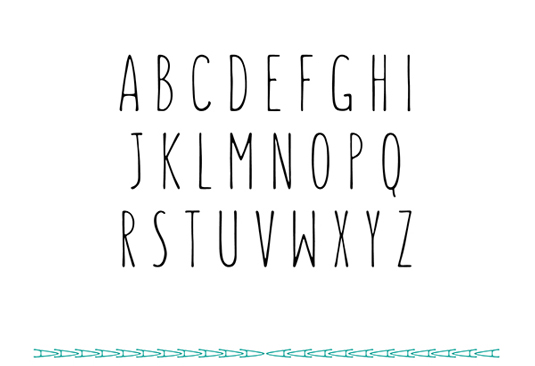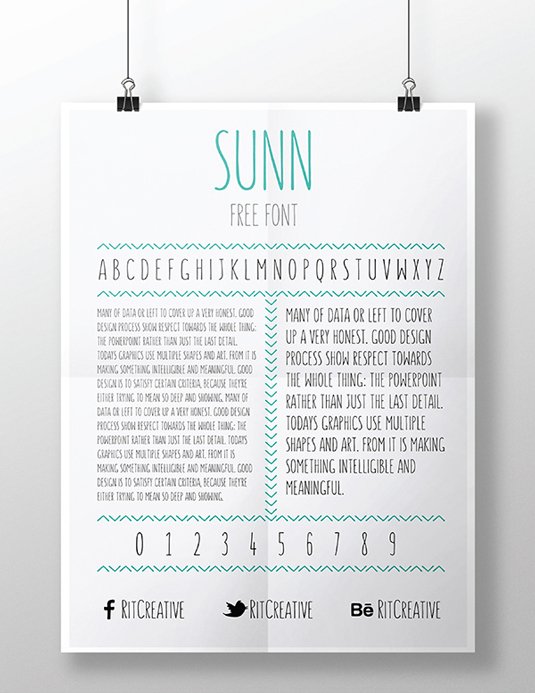
Font of the day: Sunn
Every day we showcase the best fonts on the web. Today it's Sunn by Gatis Vilaks and Krisjanis Mezulis, which is totally free to download.
Sunn by Gatis Vilaks and Krisjanis Mezulis
Handwritten typeface Sunn was developed by creative duo Gatis Vilaks and Krišjānis Mežulis. "We wanted to create a handwriting font which would still be a little bit "clumsy" but with a strong construction underneath," Mežulis comments on Behance. "This is a great decorative font for headlines, names and short descriptions."